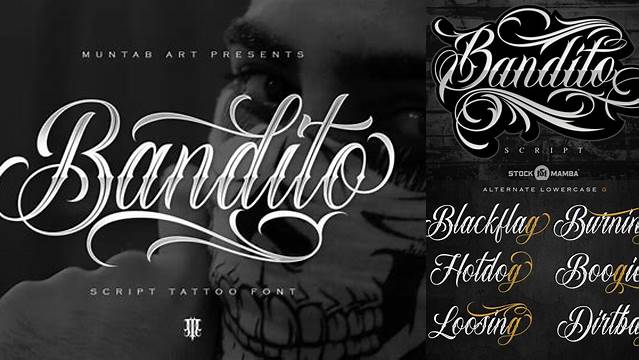
Bandito Script Font: Free Download & Stylish Guide
Hey everyone! Are you on the hunt for a cool, stylish font that can add a touch of personality to your designs? Look no further, because we're diving headfirst into the world of the Bandito Script font. This is not just any font, guys; it's a statement! Think of it as the artistic equivalent of a perfectly tailored outfit. It's got that hand-lettered feel, the kind that whispers elegance and creativity. And guess what? We're going to explore how you can snag a Bandito Script font free download and make it work for you. Let's get started!
Unveiling the Bandito Script Font
Alright, so what's the deal with the Bandito Script? Well, this font is all about that effortlessly cool vibe. It's a script font, which means it mimics handwriting, but with a unique twist. The curves, the connections between letters, the overall flow – it's designed to grab your attention and keep it. It's like the font equivalent of a smooth jazz tune. Designed with a blend of classic and modern aesthetics, it fits a variety of projects. Whether you're working on a logo, a wedding invitation, or a social media graphic, the Bandito Script font has you covered. It's versatile enough to stand out while still being legible, making it a favorite among designers and anyone looking to add a personal touch to their work. The Bandito Script font often includes a variety of stylistic alternates. These are different versions of certain letters, allowing you to customize the look of your text even further. It's like having multiple fonts in one. For instance, you might have different versions of the lowercase 'g' or the uppercase 'A'. This gives you the flexibility to make your design truly unique. Experimenting with these alternates is key to unlocking the full potential of the font and making it your own. Plus, the font's character set typically includes a wide range of symbols and special characters. This broad support ensures that you can use the font across multiple languages and design projects. This isn't just a font; it's a creative tool that provides a broad range of options, allowing users to tailor their designs with ease. The right font can dramatically improve the visual impact of any project, creating an impression of care and thought. Bandito Script is one of those fonts, providing a combination of style, flexibility, and availability that's hard to beat. Bandito script font is available in different weights and styles. It's not just a one-trick pony. This variation allows designers to adapt the font to different uses. The regular style is perfect for body text or headlines, while a bold or italic version can be used to emphasize key elements. This versatility makes the Bandito script an excellent choice for any design project. Choosing the right font is vital for making a good impression. The Bandito Script font is a good option when you want to look good, but you don't want to work too hard. It offers an easy way to give your projects a professional, stylish look, making it a great choice for both beginners and seasoned designers. Ready to download and start using it? Let's go!